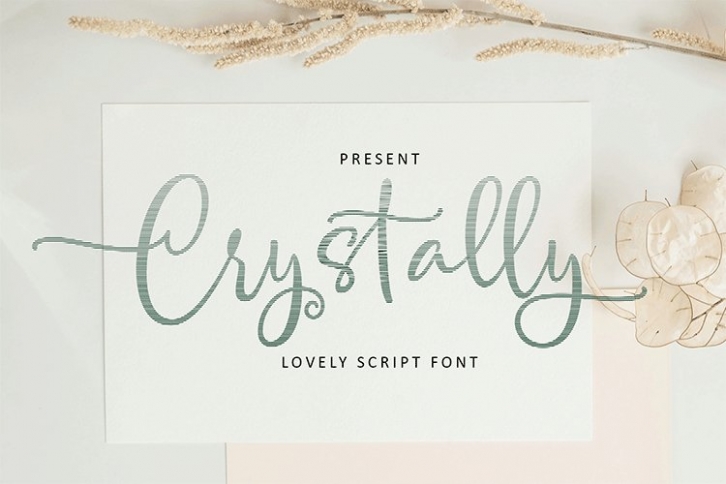
Crystally Gradient Calligraphy is a trendy and unique font with an authentic style. It was designed by Meutuwah and it's a great choice for creative people who need such a font. It was released on August 15, 2022 and the file size is 11.10 MB. Crystally Gradient Calligraphy will add an organic vibe to any design idea!